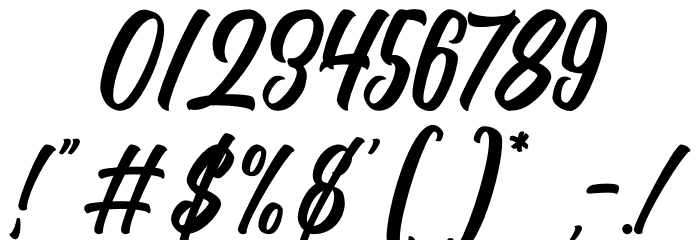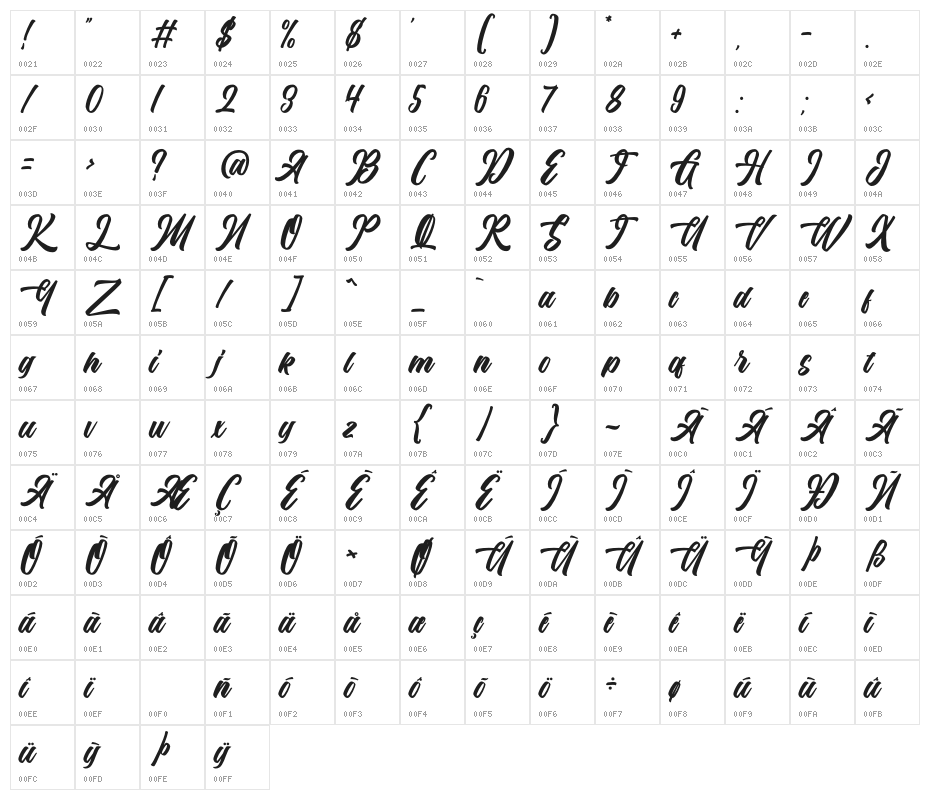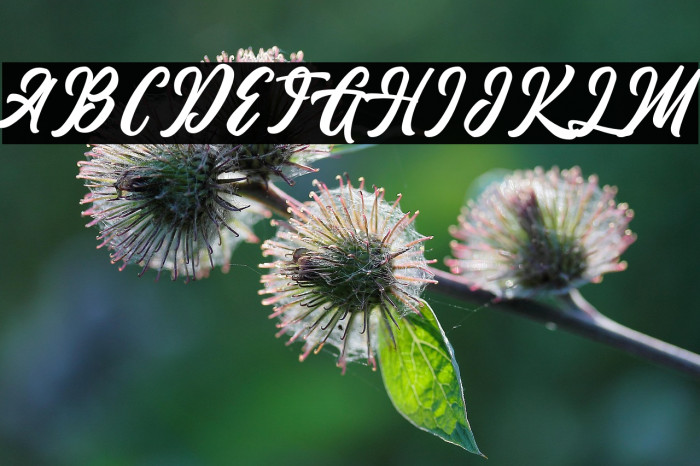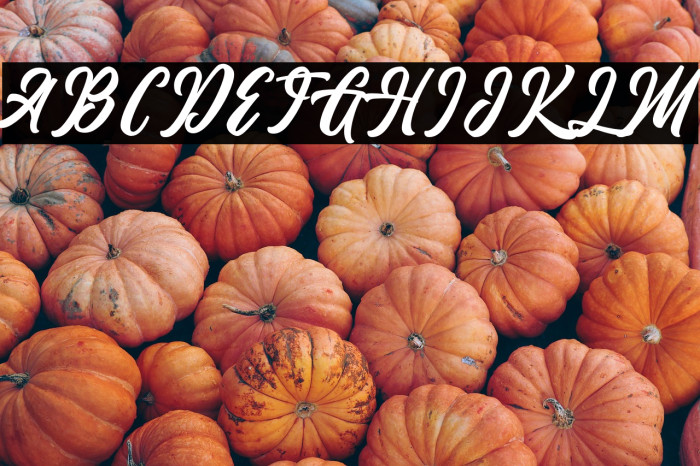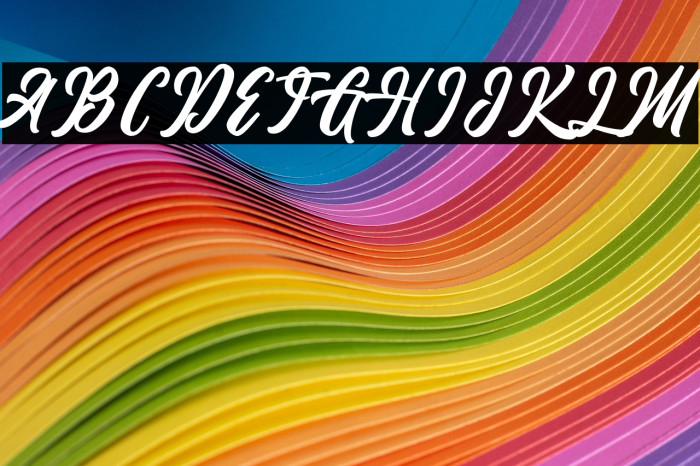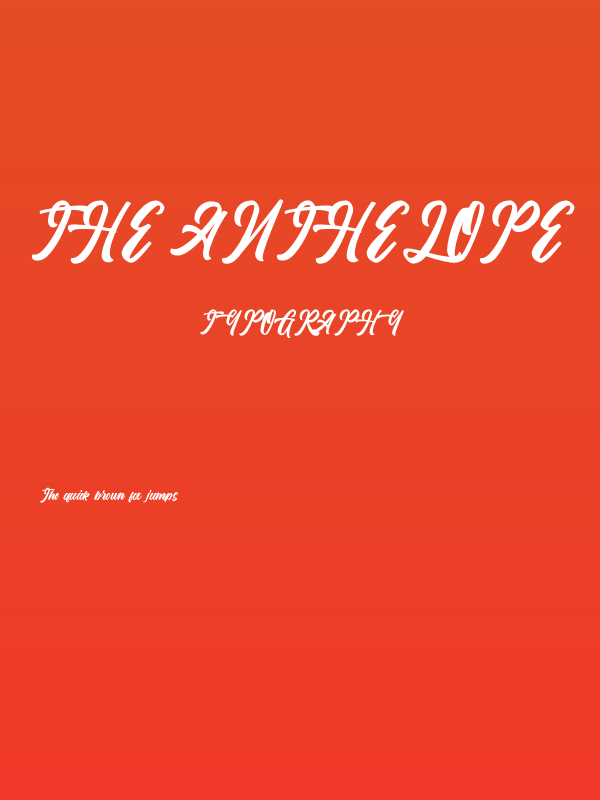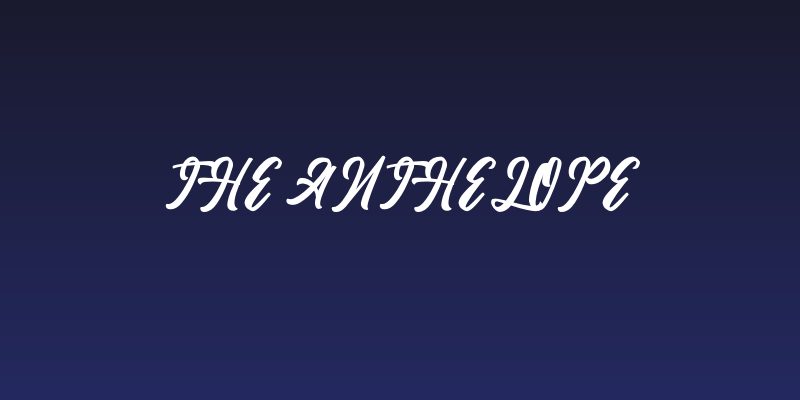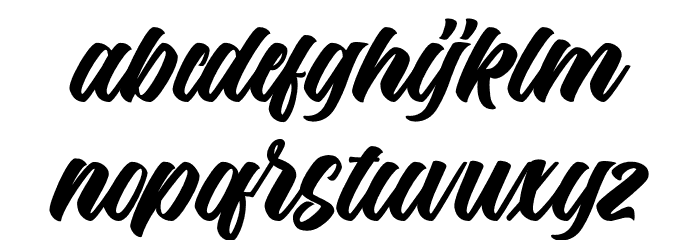
The Anthelope Font
The Anthelope Description
This font features a bold, cursive style with a smooth flow and elegant curves. The uppercase letters are particularly striking, with a consistent slant and fluid connections between strokes. The lowercase letters maintain a similar style, offering a harmonious balance between readability and decorative flair. Numbers and special characters are designed to match the overall aesthetic, ensuring a cohesive look across all text. The font's boldness and script-like appearance make it ideal for projects that require a touch of sophistication and style.